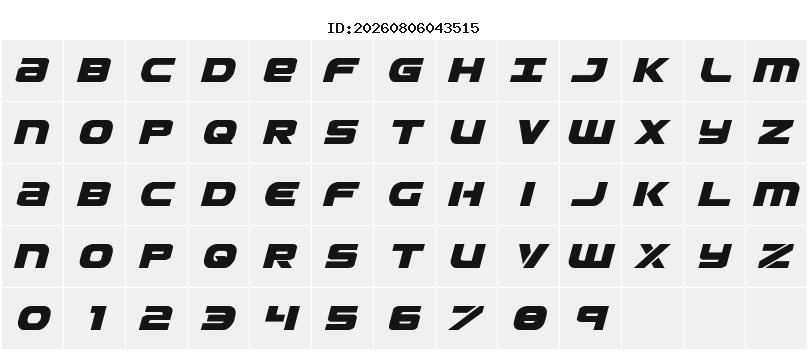
Ozda Expanded Italic Preview
About Ozda Expanded Italic.ttf
Ozda Expanded Italic.ttf is a modern, elegant sans-serif font designed for ultimate readability and visual harmony. Perfect for branding, headlines, web design, and print materials.